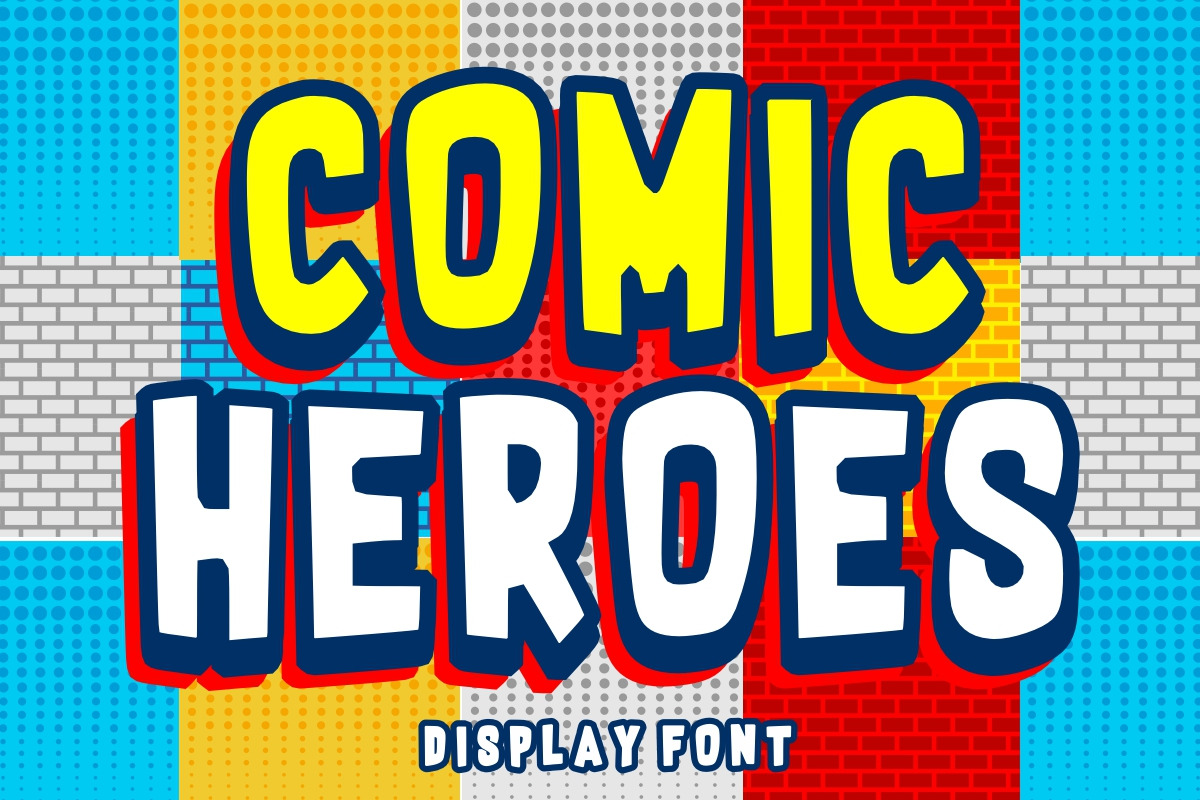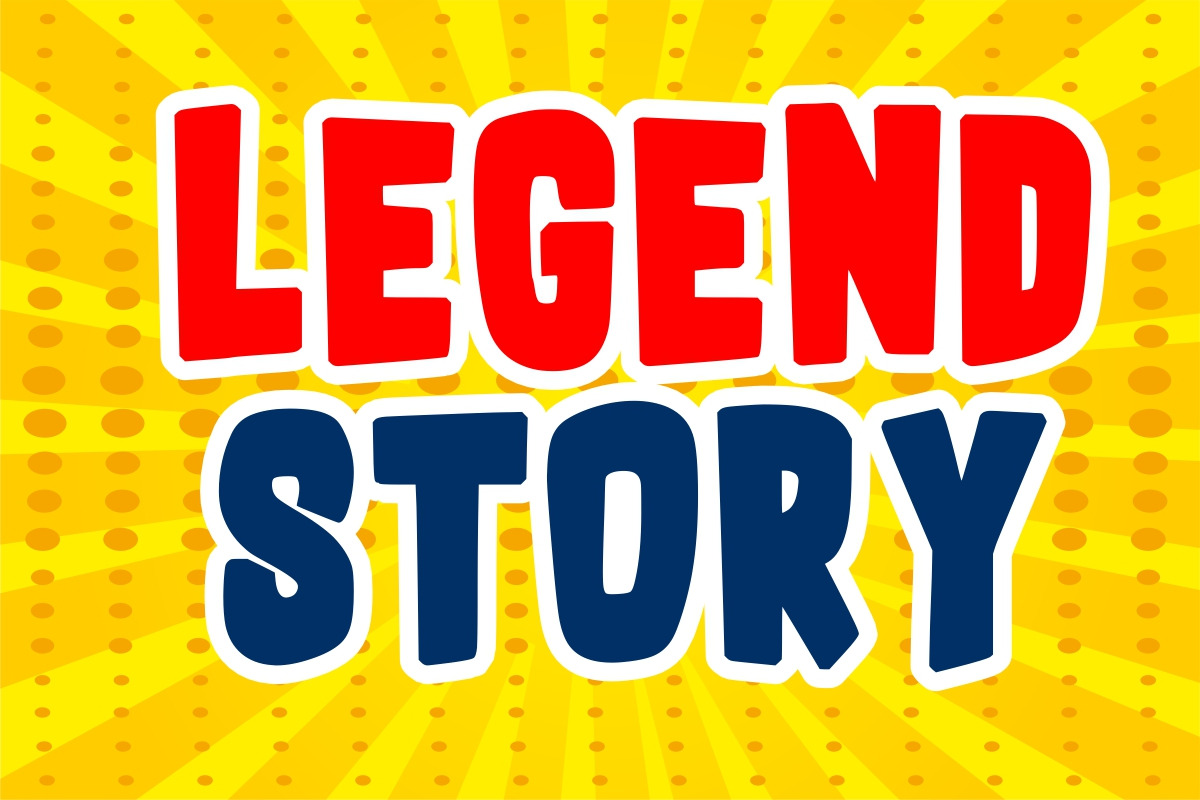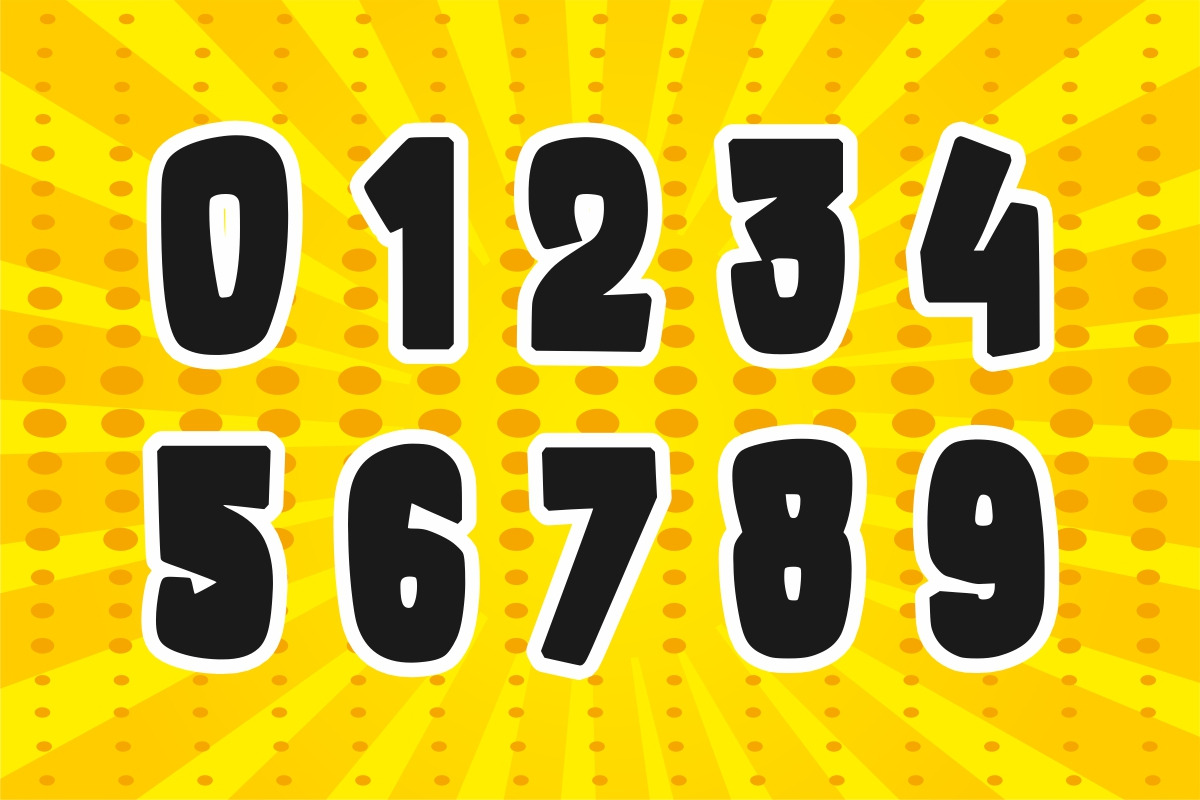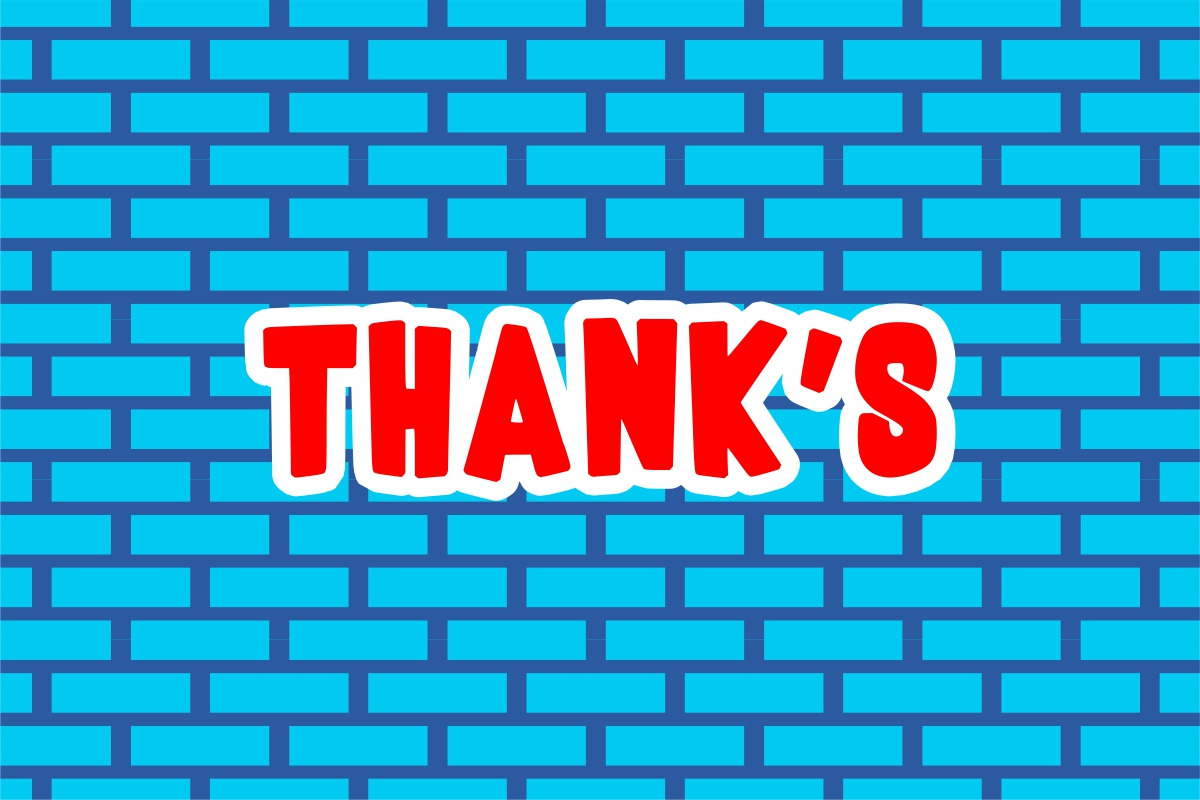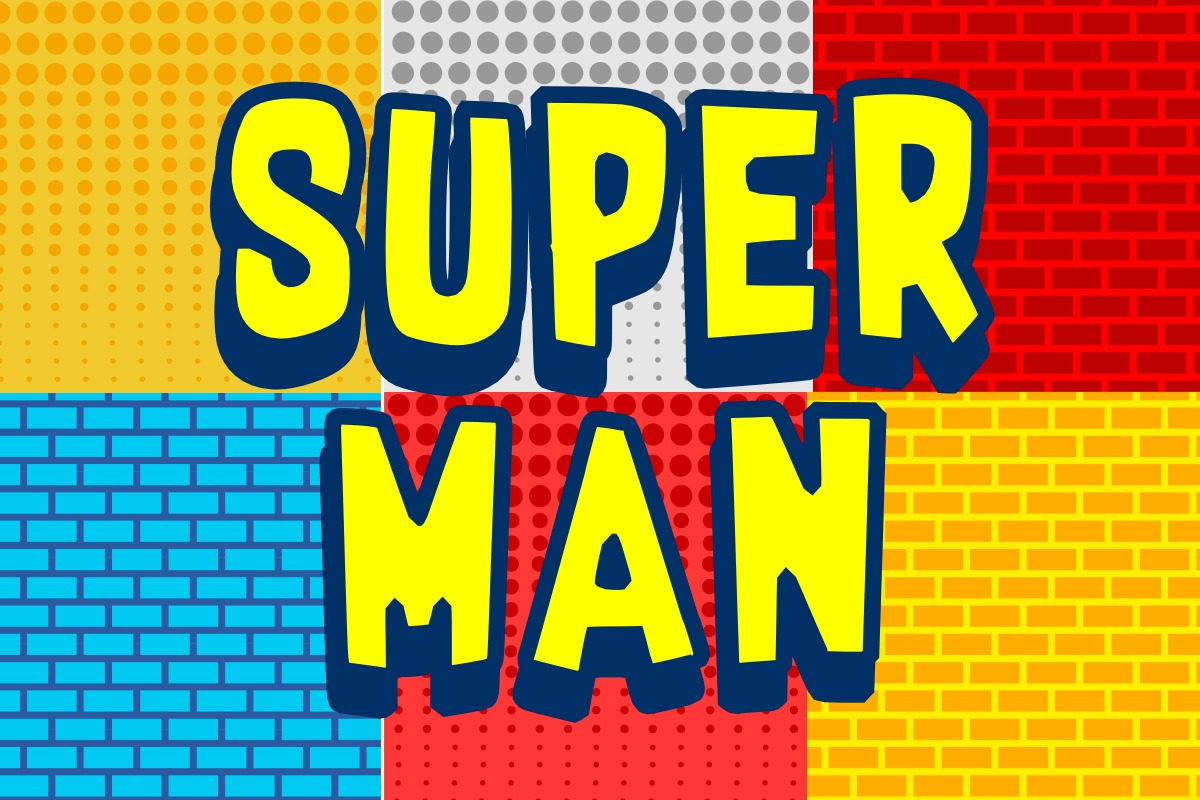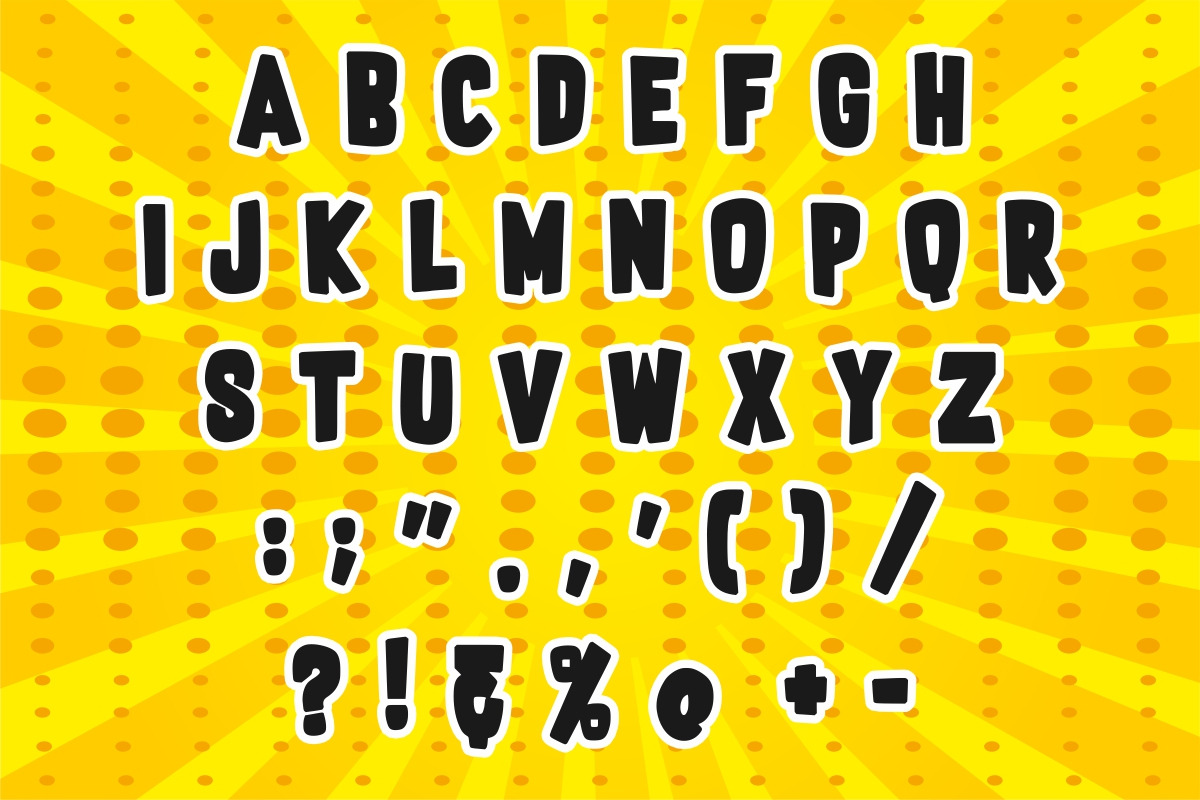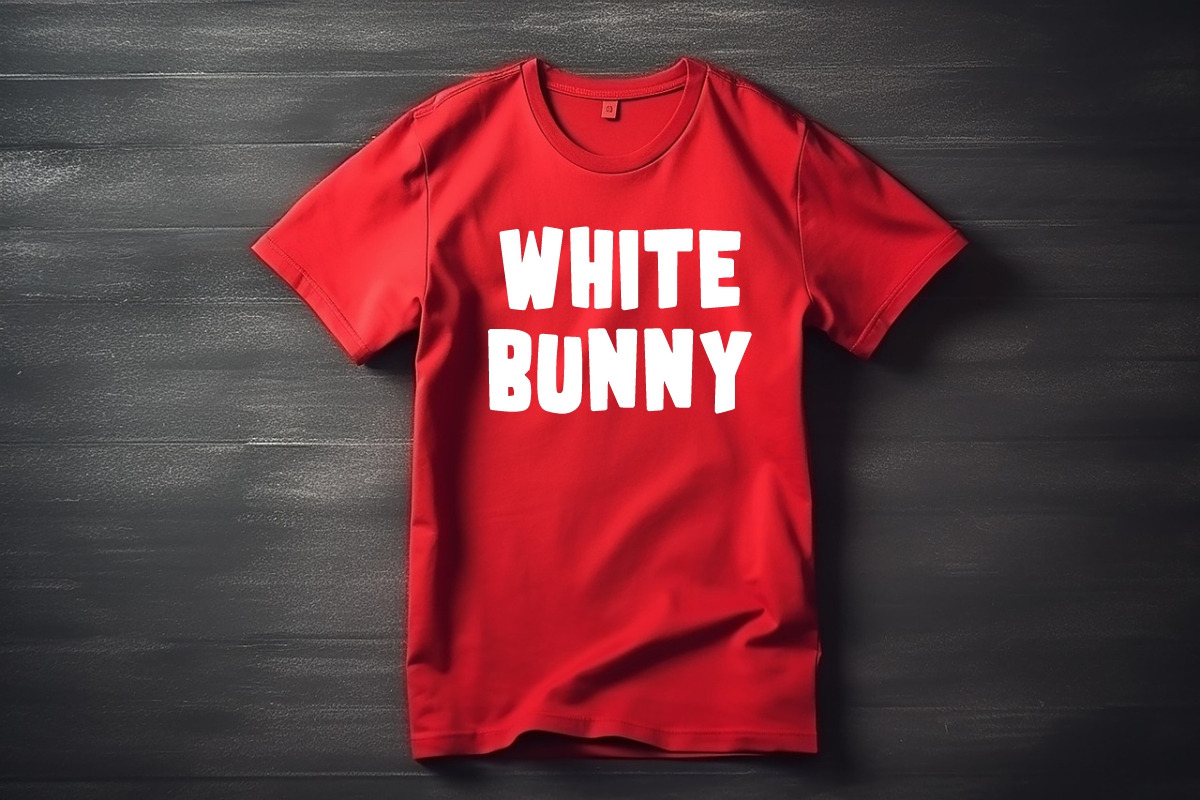
Comic Heroes Font
Comic Heroes is a childish, comic style, easy-to-read display font that conveys impeccable friendliness. Whether you’re using it for crafts, digital design, presentations, or making greeting cards.